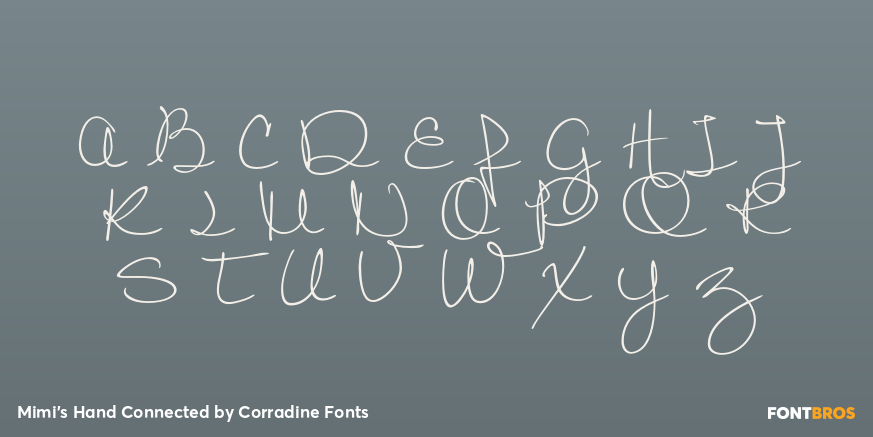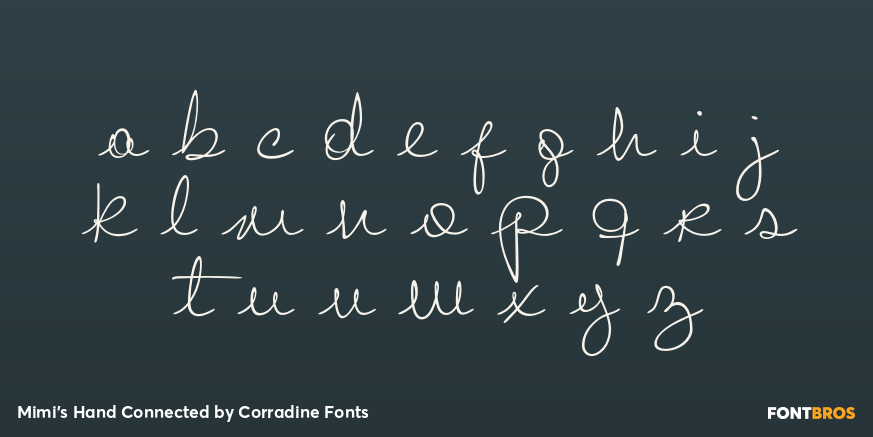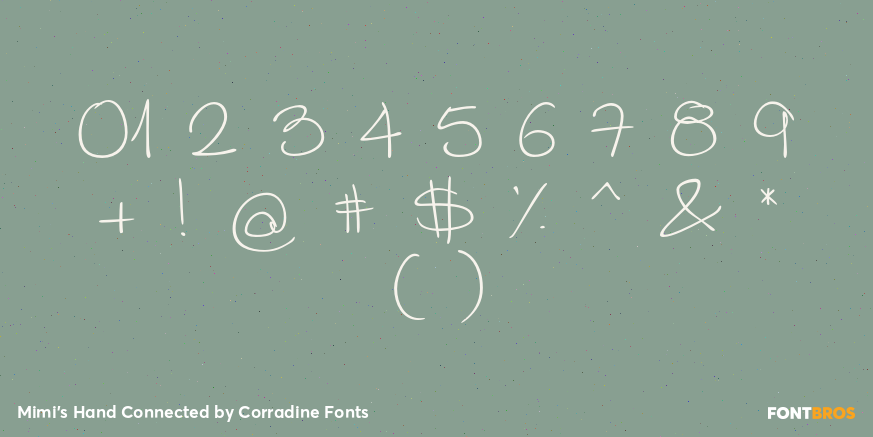
Mimi's Hand Connected
Font Family by Corradine Fonts
Based in Maria Consuelo Roman's handwriting, Mimi's Hand Connected is a very spontaneous font. It could be used in any informal project.